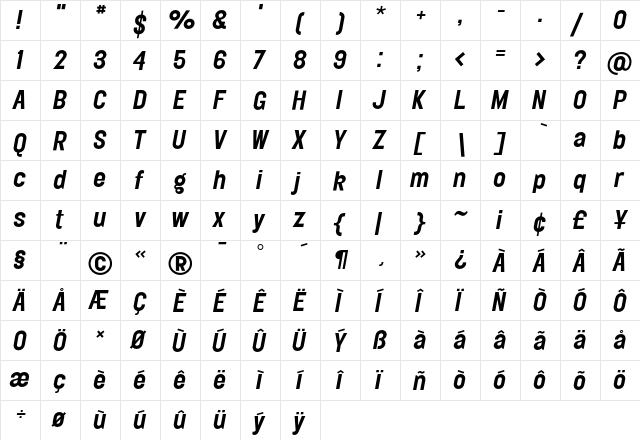
Elephant MediumOblique Font Preview
Elephant MediumOblique
Elephant MediumOblique Font Details
Design Context for Elephant Typeface
Elephant takes a measured approach to typography — its balanced proportions and neutral character make it a reliable workhorse for both digital and print work. The slanted form adds forward momentum and visual energy.
Pro Tip: Use Elephant for emphasis, pull quotes, and subheadings where its slanted energy can add rhythm to the layout.